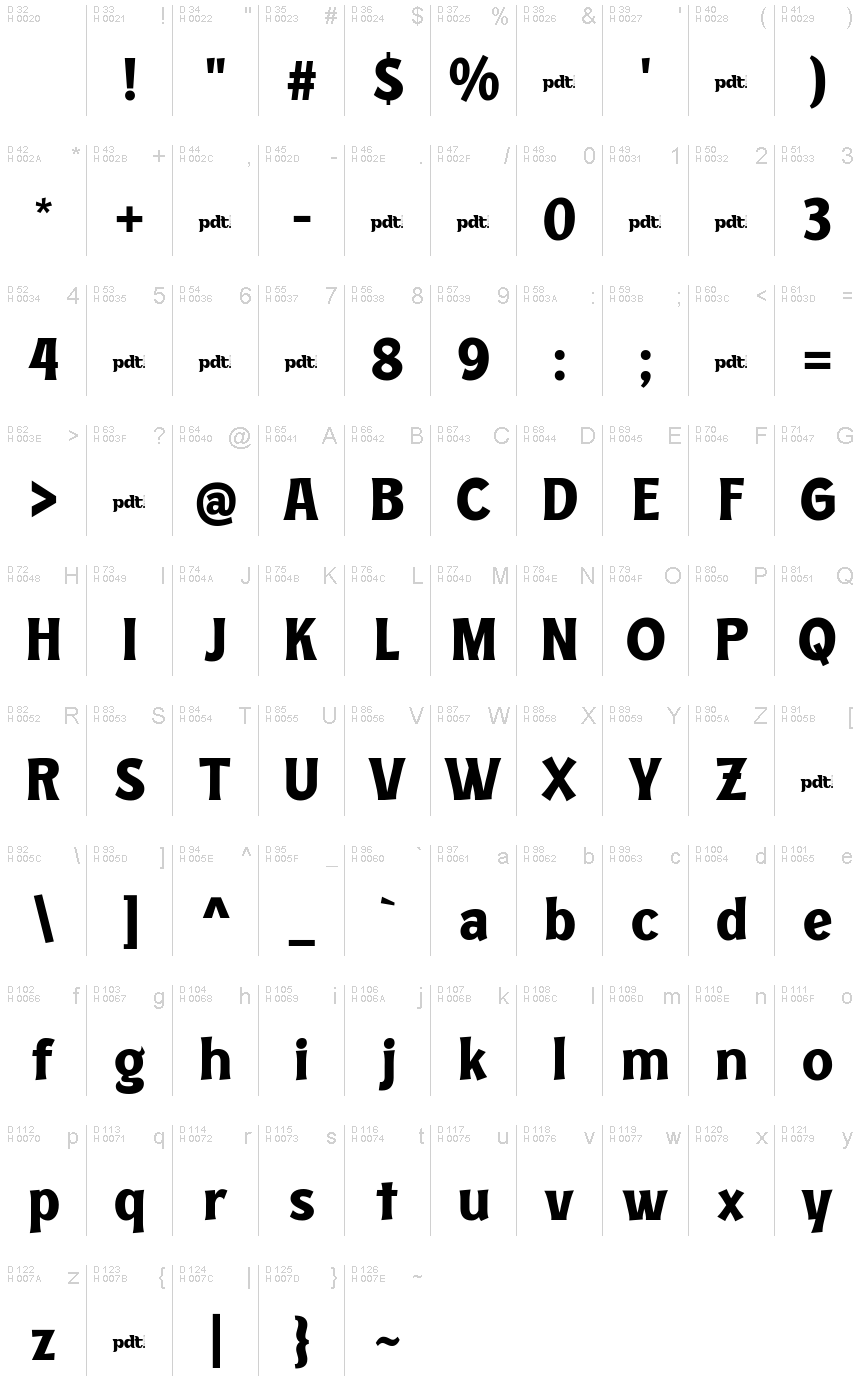
Keyugahtrial Regular
Keyugah is a powerful, captivating font. It is a typeface with an angular design that makes it stand out and look authoritative. Its geometrical robustness allows it to be used for effective headlines, catchy logos and dynamic branding applications.
This font is so versatile that it can be used in any design project including editorial layout designs, packaging designs, posters and digital interfaces. For example, these could be projects looking for seriousness or having more authority within them or maybe those have the modern touch.